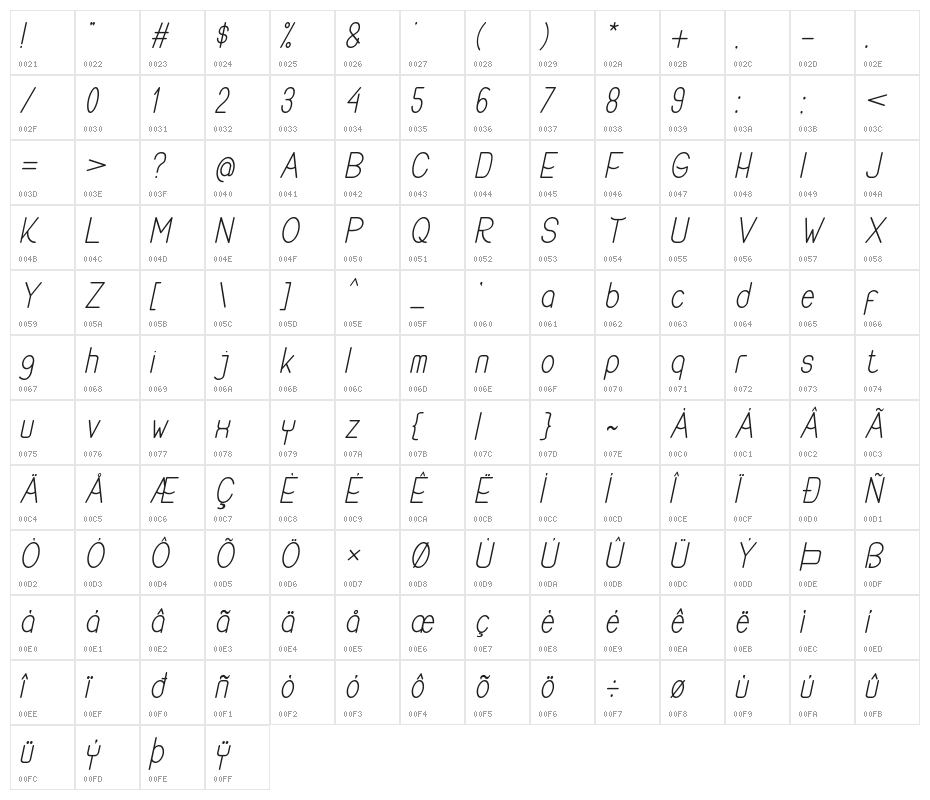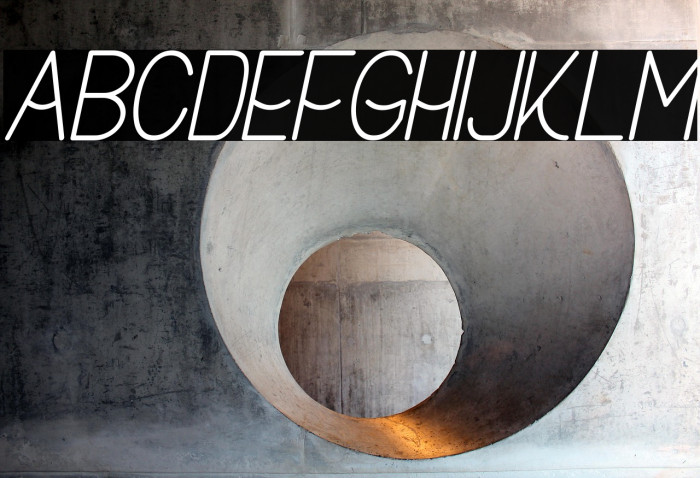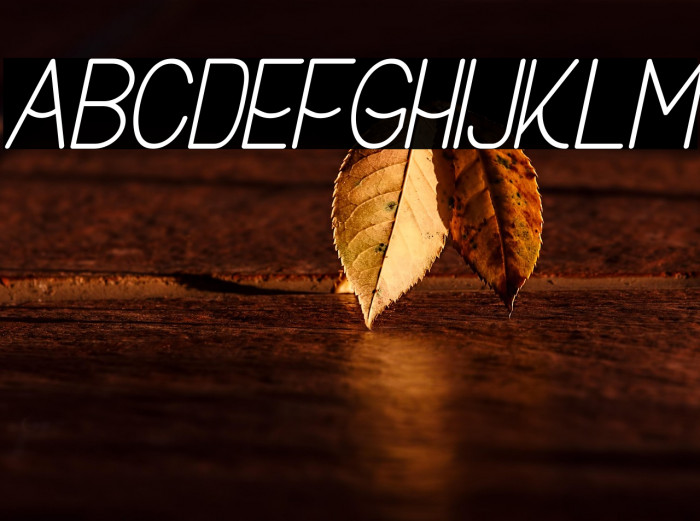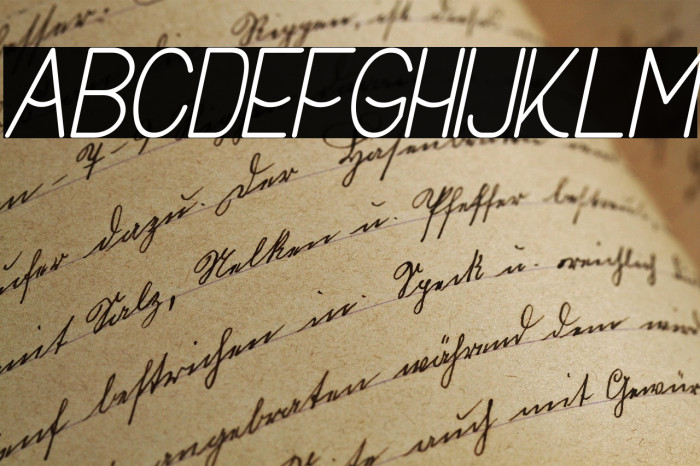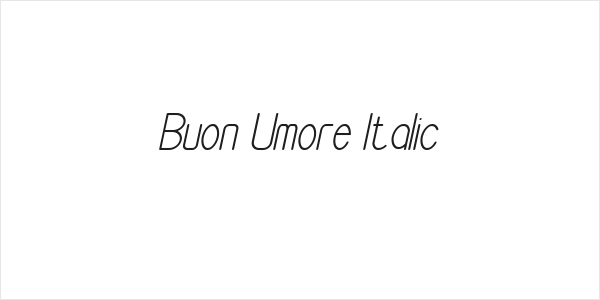
Buon Umore Italic Font
Buon Umore Italic Description
This font features a playful and dynamic style with a handwritten, italicized appearance. The letters are slightly slanted, giving a sense of motion and fluidity. The strokes are consistent in thickness, providing a uniform look across all characters. The uppercase letters are tall and narrow, while the lowercase letters maintain a similar width, creating a harmonious balance. The numerals are clear and legible, matching the overall style of the alphabet. Special characters are included, maintaining the same playful and cohesive design. This font is ideal for projects that require a touch of whimsy and creativity.
| Proposed Projects | Ideal for greeting cards, playful branding, children's books, and creative posters. |